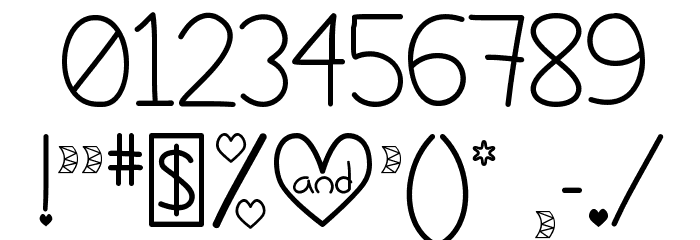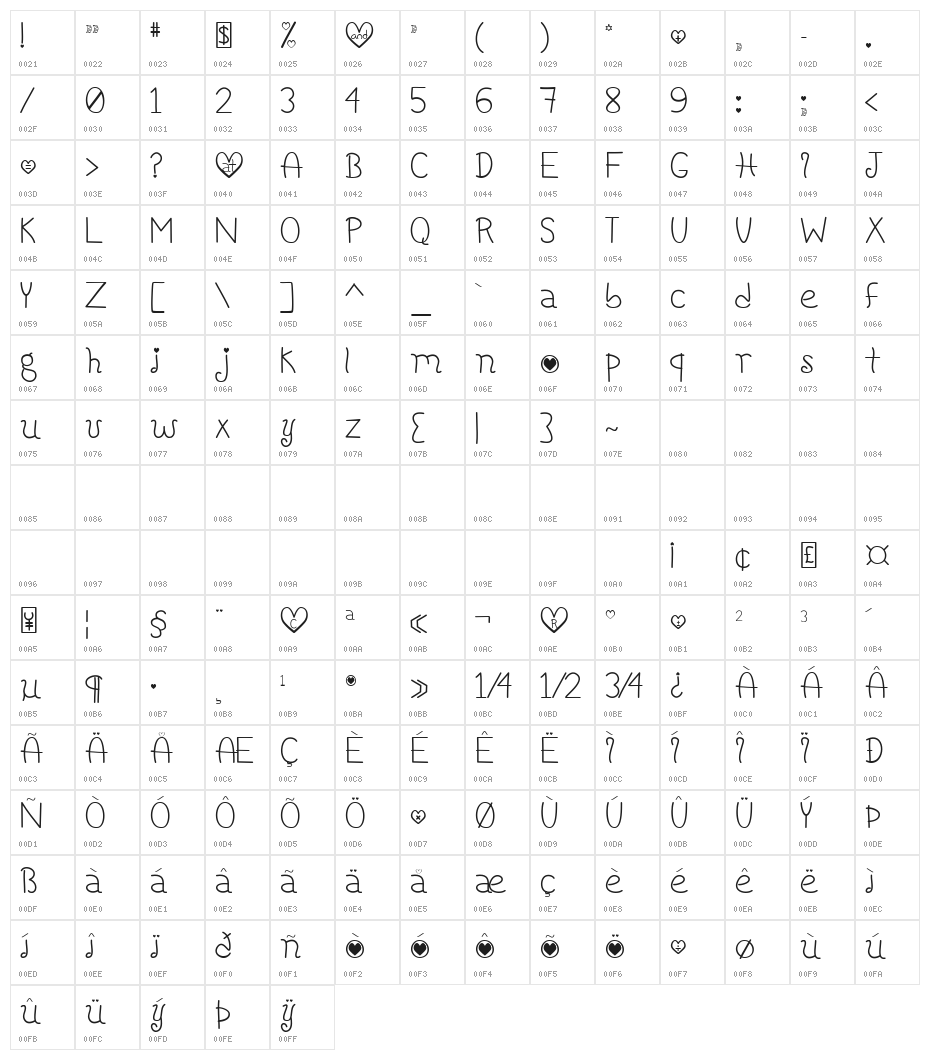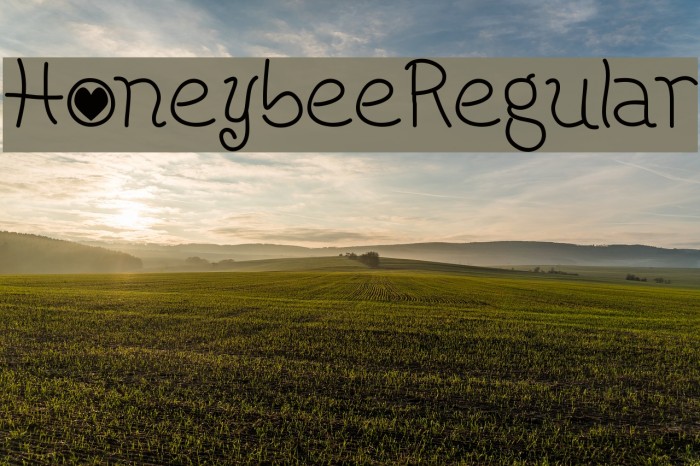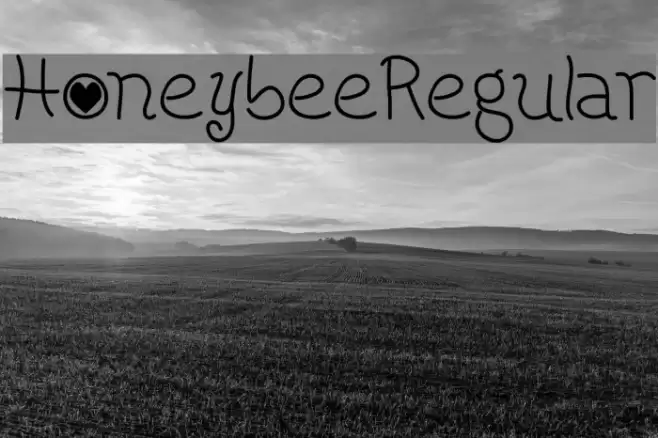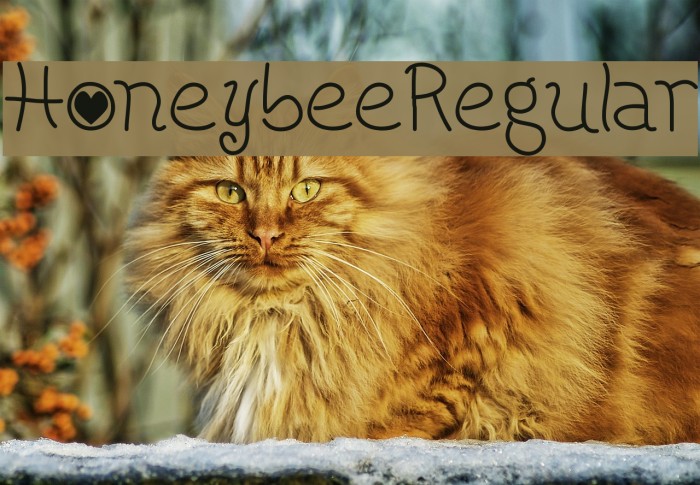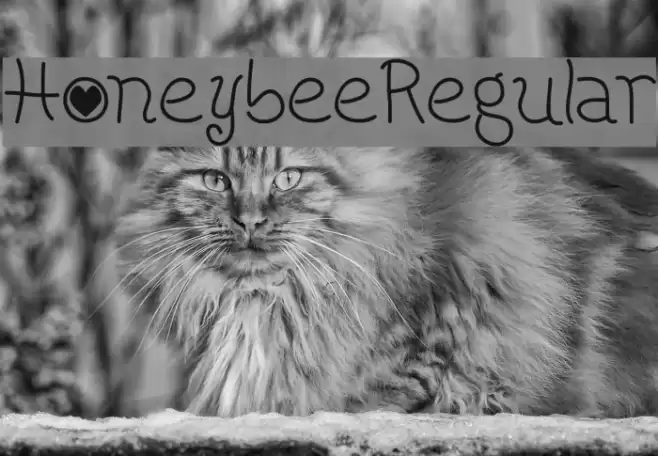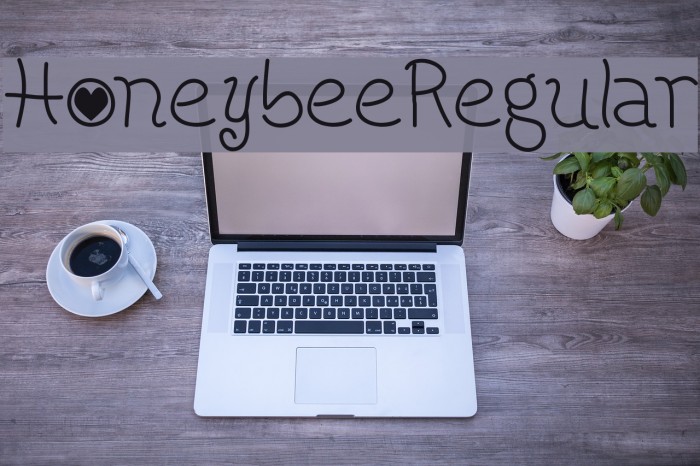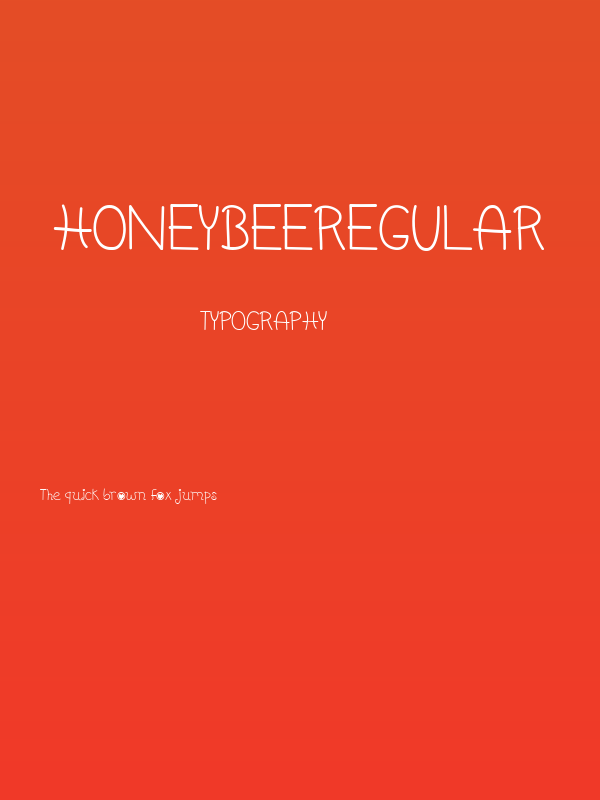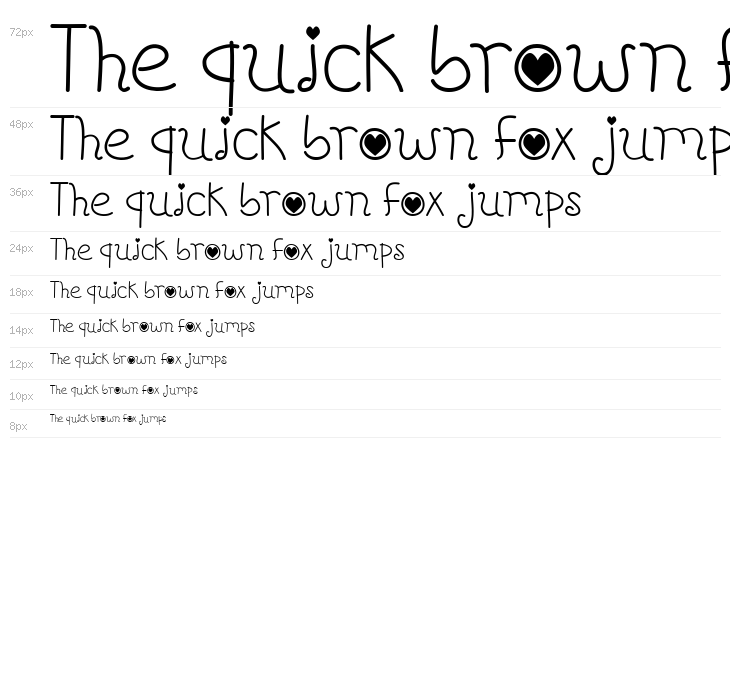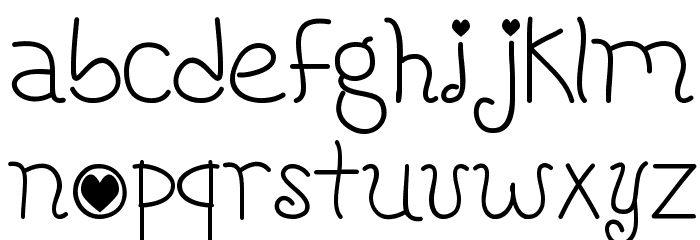
HoneybeeRegular Font
HoneybeeRegular Description
This whimsical and playful font features a handwritten style with a touch of elegance. The letters are characterized by smooth, flowing curves and subtle embellishments, such as heart shapes integrated into certain characters. The uppercase letters maintain a consistent height, while the lowercase letters exhibit a charming irregularity, adding to the font's unique personality. The numerals are clear and distinct, matching the overall style of the alphabet. Special characters include decorative elements that enhance the font's playful nature. This font is perfect for projects that require a lighthearted and creative touch.